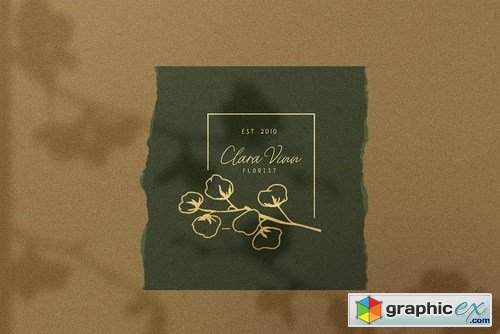
Molica - Font Duo
Molica is a font duo that combines a display font and a handwritten font. This font is perfect for invitations, logo design, quotes, and content creation.